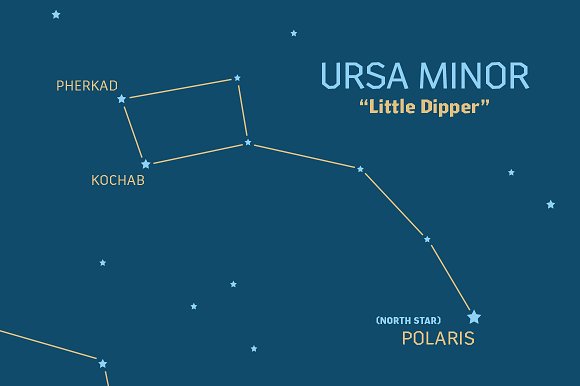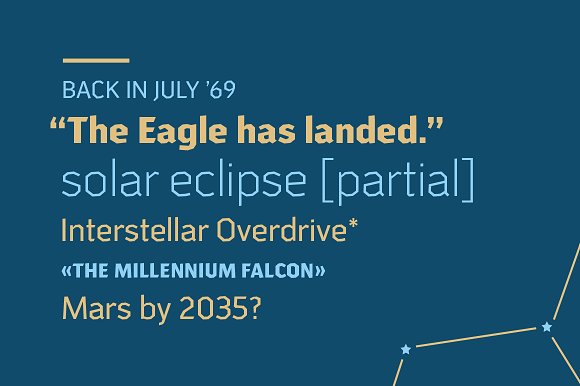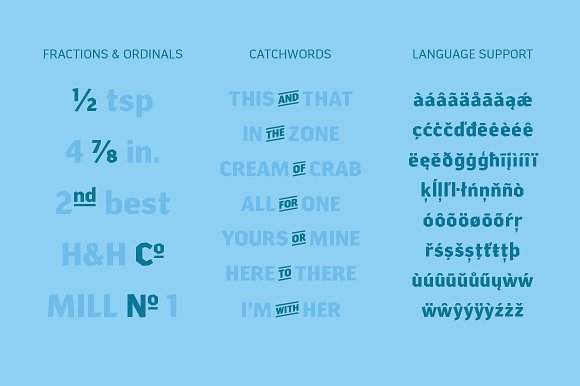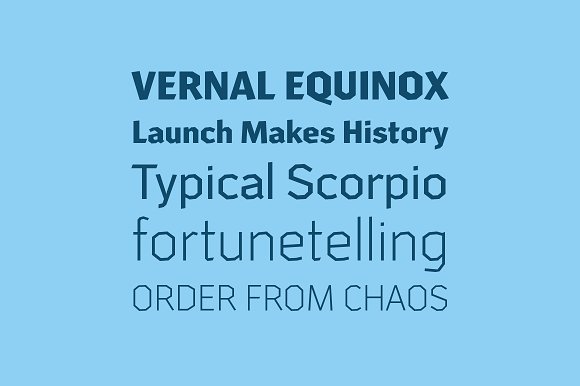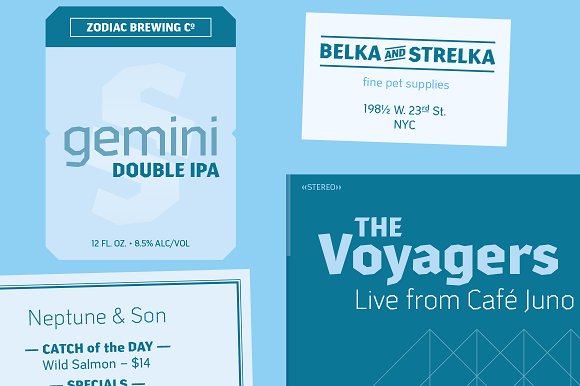
Arcas Sans Serif Font
Arcas is a display face with no curves — straight lines only. Unlike many other typefaces with this characteristic, however, it’s built with some asymmetry, which helps it avoid the “sports” or “tech” feel that many of those fonts often have. Instead, it’s a surprisingly warm and friendly family, ready to lend a unique personality to headlines, posters, and packaging.